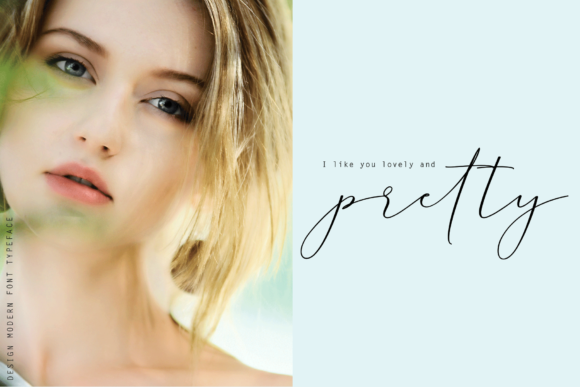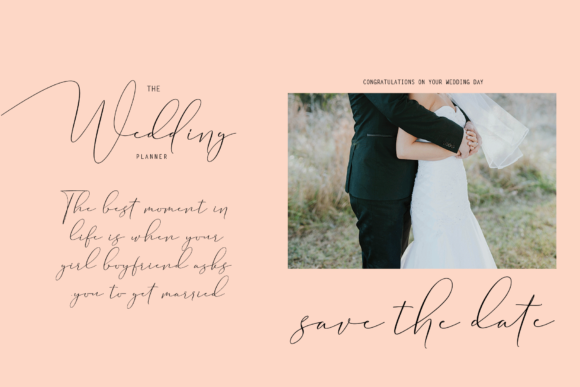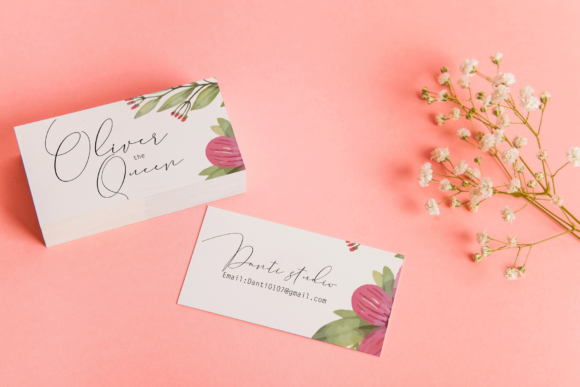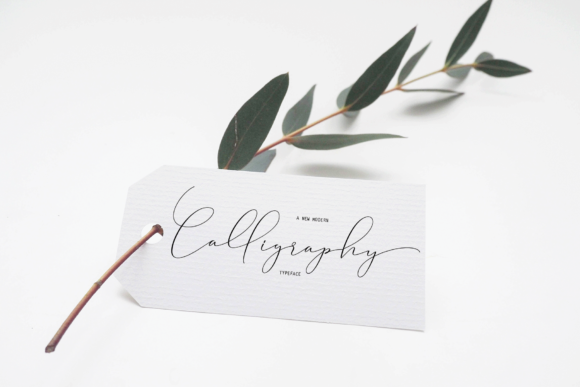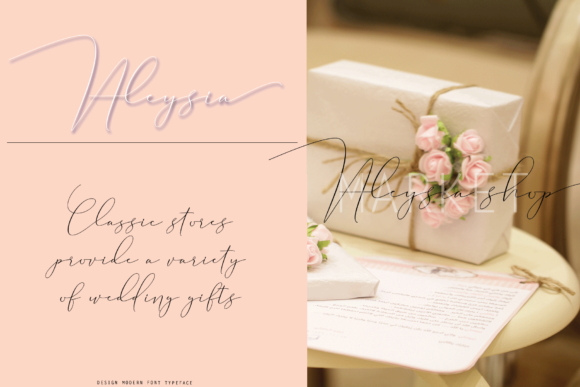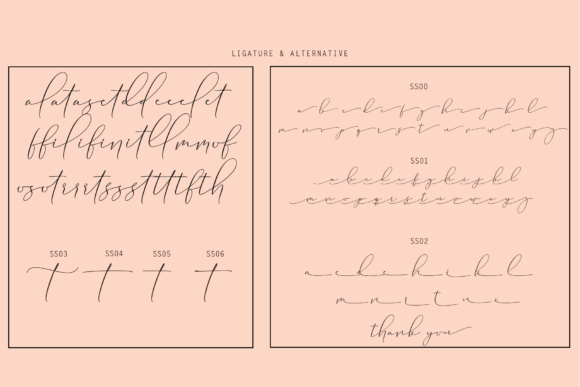
Introduction to Maxleon Font
Have you ever been stuck on a creative project, desperately searching for the perfect font to bring your vision to life? I’m sure you’ve been there – staring at your computer screen, scrolling through endless design resources, and still, nothing seems quite right. That’s when I discovered the Maxleon Font, and it changed everything.
With its elegant, handwritten style and natural characteristics, the Maxleon Font is a game-changer for designers. Whether you’re working on invitations, signatures, blogs, social media, business cards, or any other project, this versatile font is sure to elevate your design to the next level.
Not only is the Maxleon Font a valuable addition to any design arsenal, but it’s also available for free download with a transparent background, making it a high-quality resource for any creative project. In this article, we’ll dive deeper into the world of the Maxleon Font and explore its many uses and benefits.
Key Features of Maxleon Font
- Unique, modern design aesthetic, making it an ideal choice for modern and contemporary creative projects.
- Designed to be highly legible and versatile, suitable for a wide range of design applications and creative projects.
Honest Review: Maxleon Font
I recently had the opportunity to work with the Maxleon Font, a popular design resource for my creative project. Overall, I found it to be a high-quality addition to my design toolbox.
- The Maxleon Font offers a wide range of styles and weights, making it versatile for various design applications.
One of the standout features of the Maxleon Font is its high quality and modern aesthetic. It’s perfect for creating a sleek and professional look for your design project.
- The font may not be suitable for all design applications, particularly those requiring a more traditional or classic look.
Overall, I’m impressed with the Maxleon Font and would definitely consider using it again for future design projects.
Common Use Cases for Maxleon Font
Maxleon Font is perfect for creating a wide range of designs, from logos and graphics to presentations and documents. Its high-quality look and transparent background make it ideal for professional designs, while its free download option makes it accessible to designers of all levels.